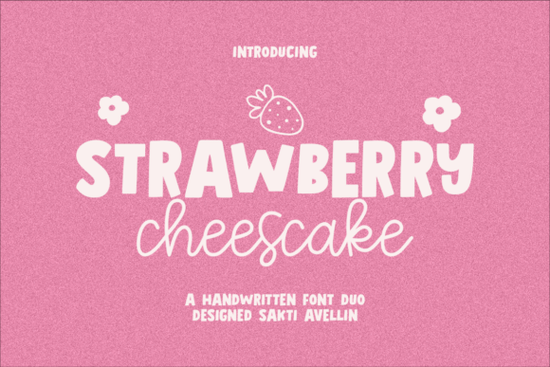
Looking for a handwritten font that feels warm, playful, and versatile enough for both personal and commercial projects? The Strawberry Cheesecake font duo might be exactly what you need. It pairs a bold, chunky display font with a smooth cursive script, giving designers and crafters two complementary styles in one download. Whether you're working on bakery branding, kids' merchandise, or social media content, this duo brings a friendly, handcrafted feel to any layout.
What comes in the Strawberry Cheesecake font package?
This isn't a single font it's a font duo. That means you get two distinct styles designed to work together:
- A bold display font chunky, rounded letterforms that catch the eye and work well for headlines, logos, and titles.
- A script font a fluid cursive that mimics natural handwriting, ideal for accents, taglines, and decorative text.
Both fonts share an organic, slightly imperfect quality that gives your designs a handmade look without feeling sloppy. They complement each other naturally, so you don't have to spend extra time hunting for a matching pair. If you've ever struggled to find two fonts that actually look good side by side, that problem is already solved here.
What kinds of projects work well with this font duo?
The versatility of this cheerful font pair is one of its strongest qualities. Here are some popular ways to use it:
- Food and bakery branding cake shop logos, menu headers, packaging for sweets and baked goods
- Print-on-demand products t-shirt designs, tote bags, mugs, and stickers
- Social media graphics motivational quotes, Instagram posts, Pinterest pins
- Greeting cards and invitations birthday cards, baby shower invites, casual wedding stationery
- Children's designs storybook covers, classroom materials, kids' apparel
- Seasonal promotions holiday posters, sale banners, festive packaging
- Digital marketing email headers, blog graphics, website decoration elements
How does it compare to other handwritten font duos?
The Strawberry Cheesecake duo sits in a comfortable middle ground it's playful without being childish and warm without being overly casual. That balance makes it useful across a wider range of projects compared to more niche typefaces.
Tips for pairing the bold and script fonts together
Getting the most out of a font duo means using both styles with intention. Here are a few practical tips:
- Use the bold font for your main message headlines, titles, or key words that need to stand out.
- Reserve the script for accents subtitles, taglines, or short decorative phrases that add personality.
- Play with size contrast make one font noticeably larger than the other to create clear visual hierarchy.
- Keep the background simple these fonts have enough character on their own. Busy backgrounds can make them hard to read.
- Test at different sizes before finalizing the bold font works well at larger sizes, while the script can hold up in both small and medium text.